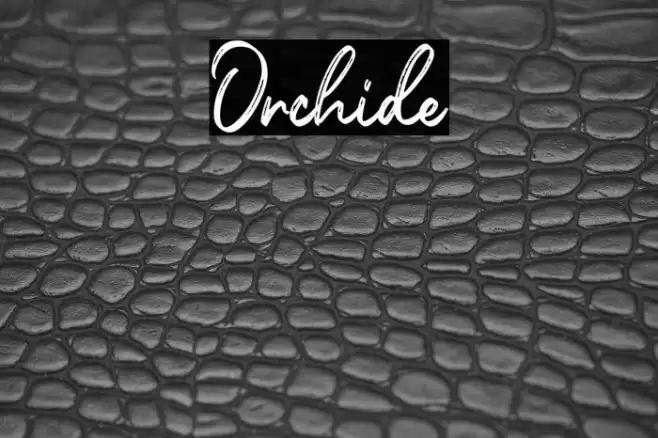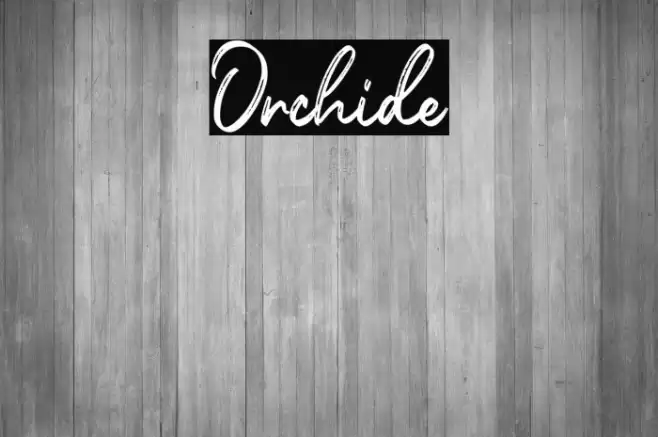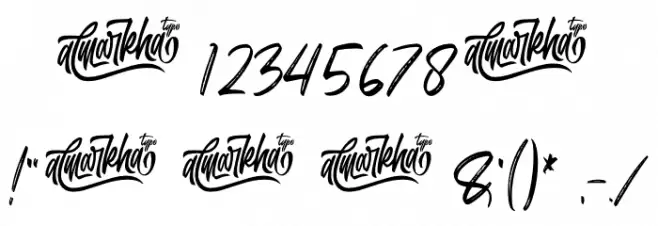
Orchide Font
Orchide Description
This font features a dynamic and expressive script style, characterized by its fluid and cursive letterforms. The uppercase letters are bold and slightly slanted, adding a sense of movement and elegance. The lowercase letters maintain a consistent flow, with smooth connections between each character, enhancing the overall readability. Numbers and special characters are designed to complement the script style, maintaining the same fluidity and artistic flair. This font exudes a sense of creativity and personal touch, making it ideal for projects that require a handwritten or artistic feel.
A dynamic and expressive script font with fluid, cursive letterforms from Regular fonts.
- Proposed Projects: Ideal for wedding invitations, greeting cards, branding, and logo design.
- Use Case: Logos, Headlines, Invitations